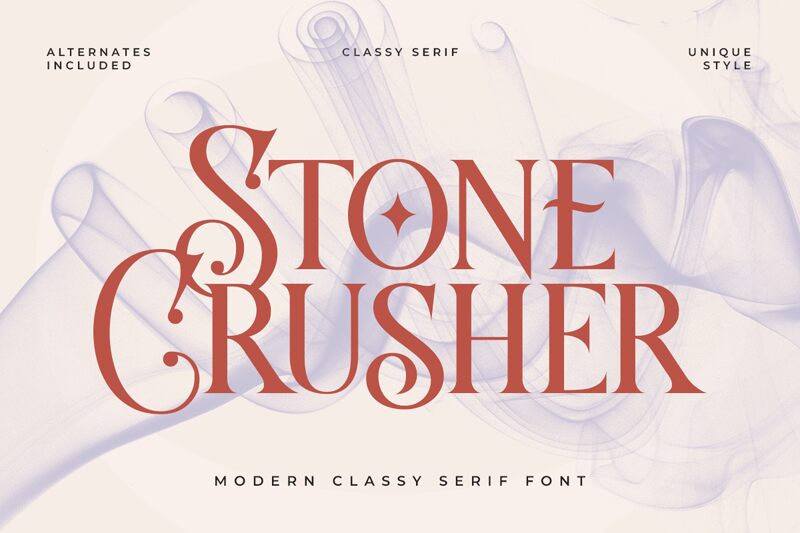
Stone Crusher
Stone Crusher, crafted by Kong Font, is a distinctive display font with a retro flair that exudes both strength and elegance. Its semi-light weight adds a whisper of grace to its substantial character, making it not just legible but also aesthetically pleasing. The font's nostalgic curves and sharp edges are reminiscent of vintage design, yet its clean execution ensures versatility for modern creative endeavors.
The Stone Crusher font is particularly suited for branding projects, poster designs, and any setting where a touch of the past is needed to enrich the visual narrative. Its unique style guarantees that your message will stand out while maintaining an air of sophistication and timelessness. Whether you're aiming for bold headlines or stylish logos, Stone Crusher can anchor your design with its memorable charm.